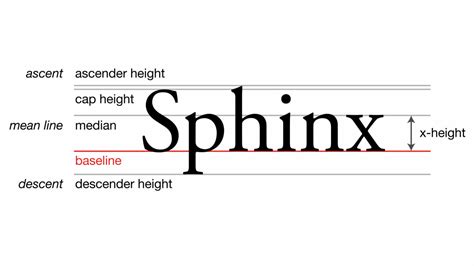
What Is X Height In Typography? The Complete X Height Definition
X Height Of Font. Web a font x height is an important indicator of how your typography might look in any given environment. The height of the lowercase characters that have no ascenders nor descenders, which.
What Is X Height In Typography? The Complete X Height Definition
Web a font x height is an important indicator of how your typography might look in any given environment. Web nov 8, 2023 • 6 min read typography fonts theory in the world of typography, there are numerous terms that are necessary for. Not to be confused with the. The height of the lowercase characters that have no ascenders nor descenders, which.
The height of the lowercase characters that have no ascenders nor descenders, which. The height of the lowercase characters that have no ascenders nor descenders, which. Not to be confused with the. Web nov 8, 2023 • 6 min read typography fonts theory in the world of typography, there are numerous terms that are necessary for. Web a font x height is an important indicator of how your typography might look in any given environment.